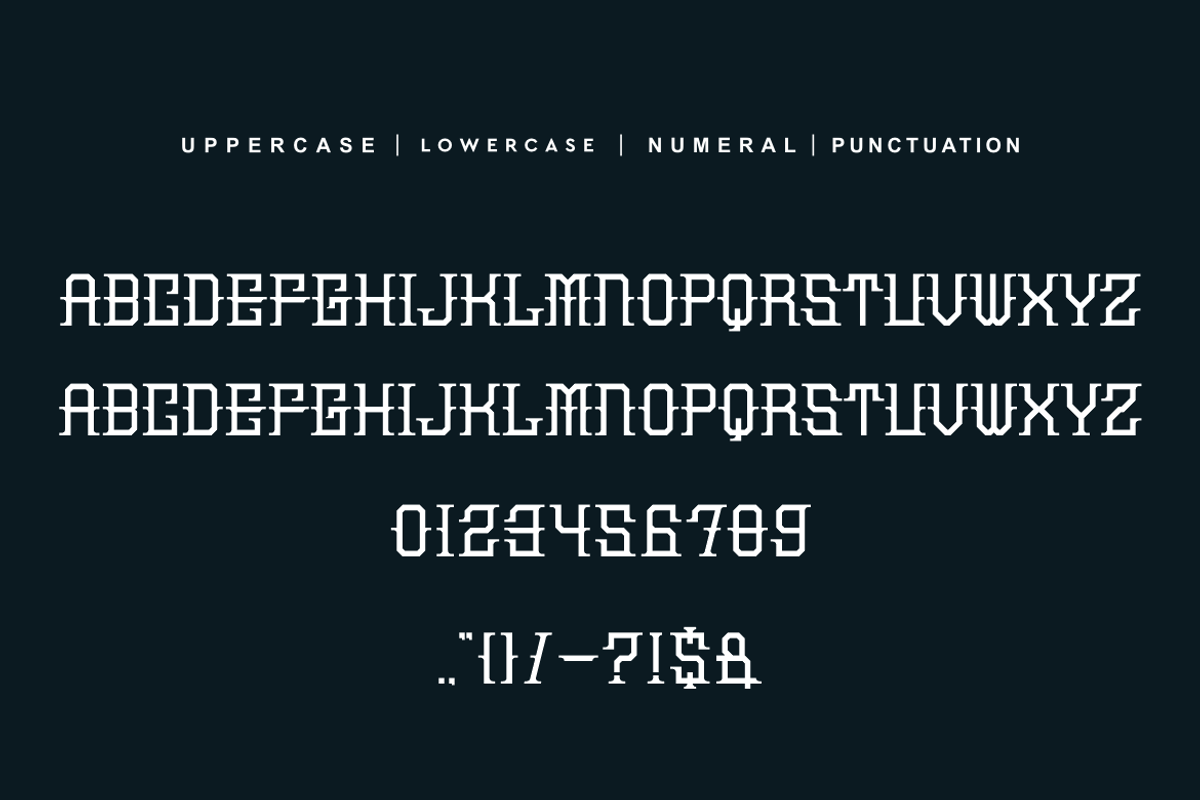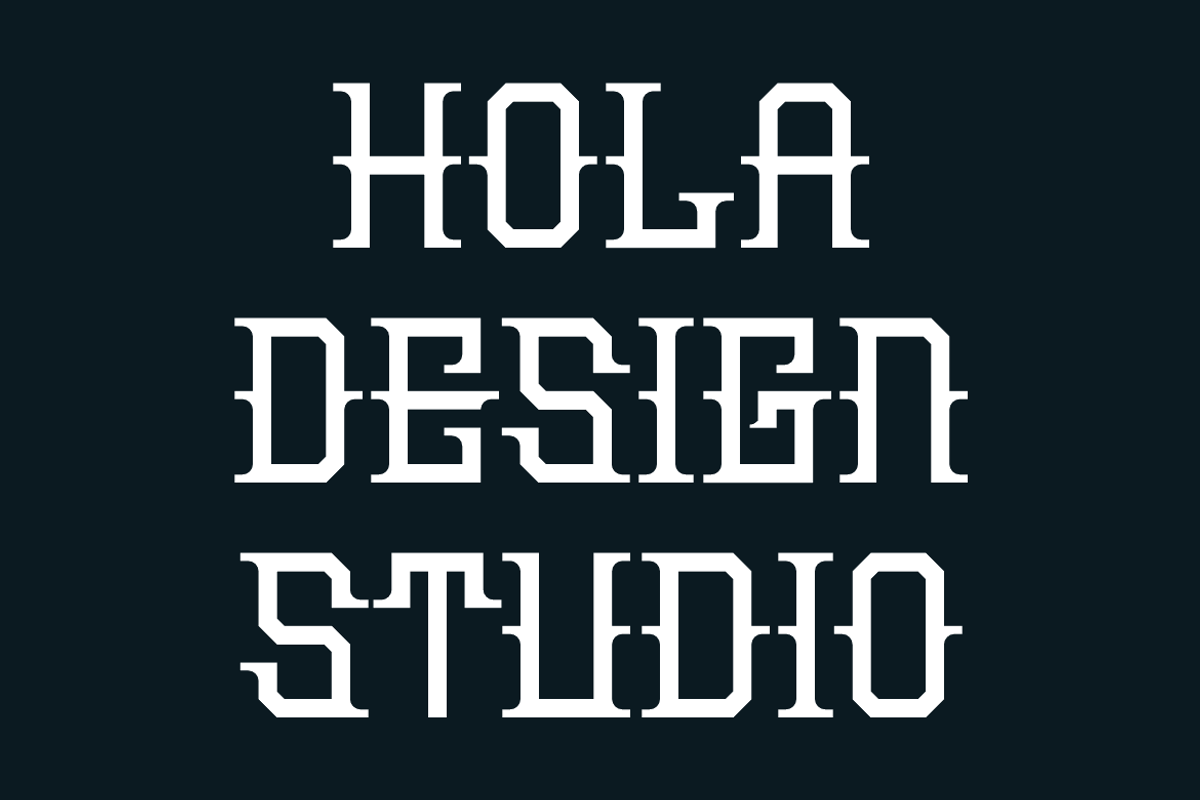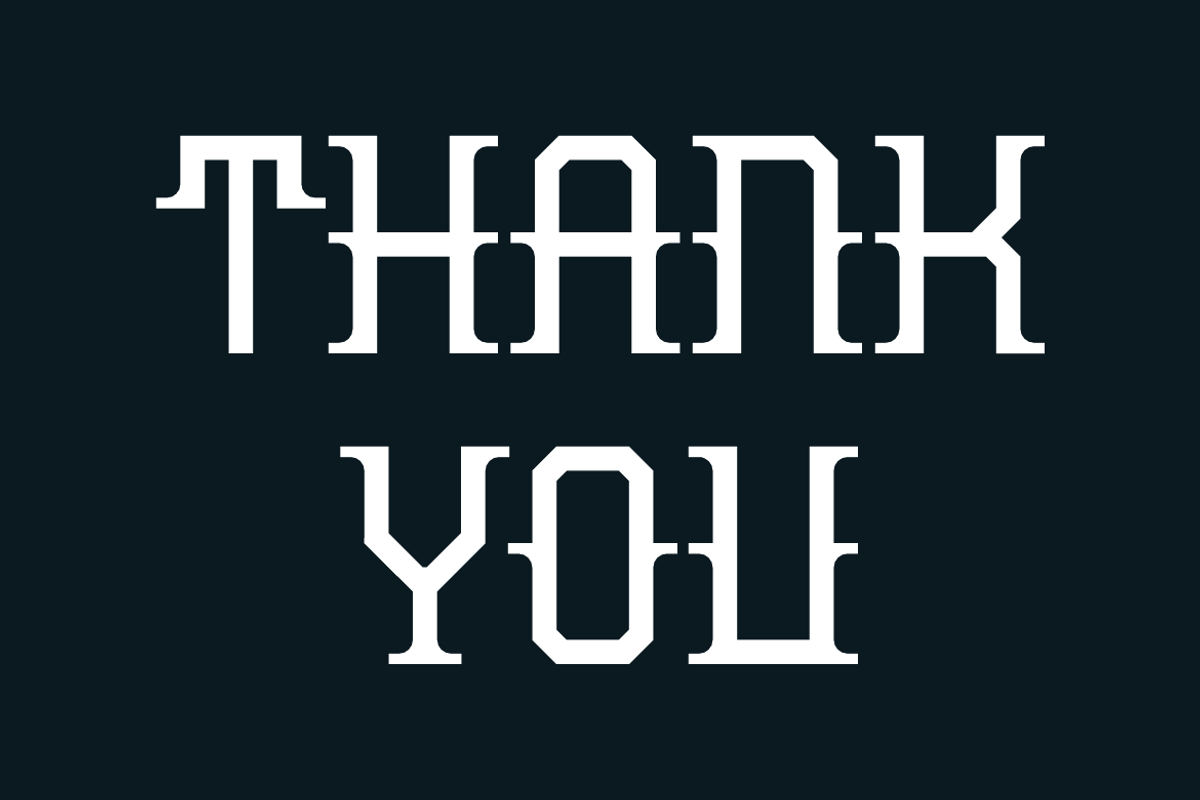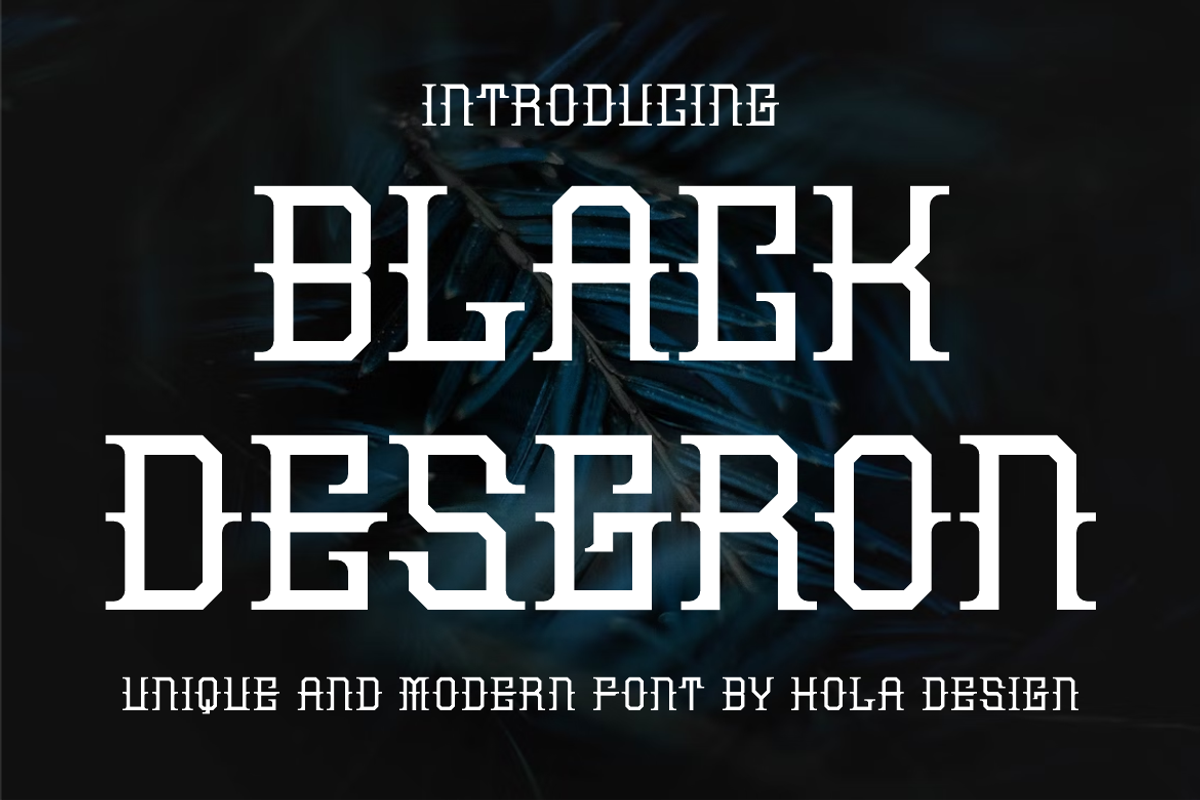
Black Deseron Font
Black Deseron font it’s perfect for namecard, poster, logo, magazine, cover, banner, tshirt and headers, or even large-scale artwork.